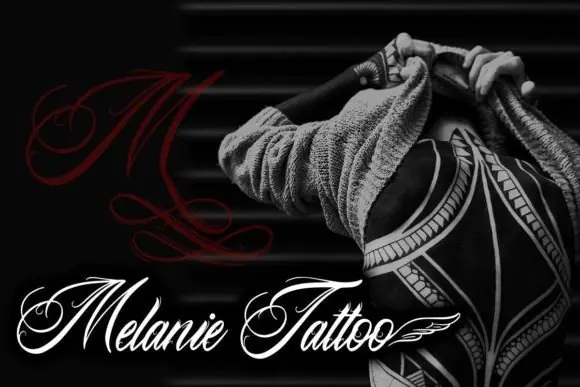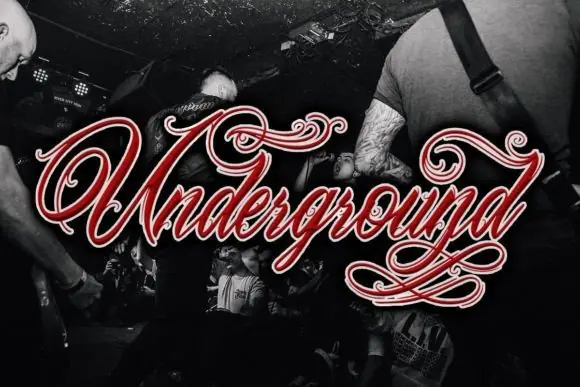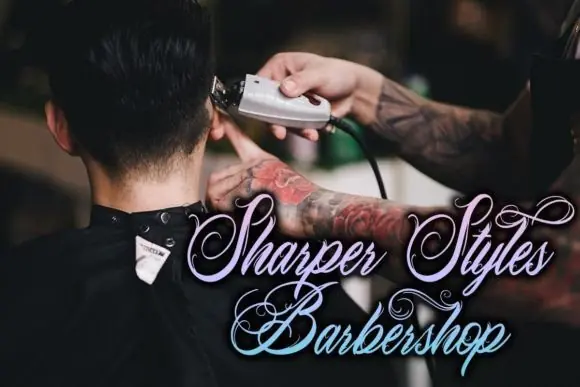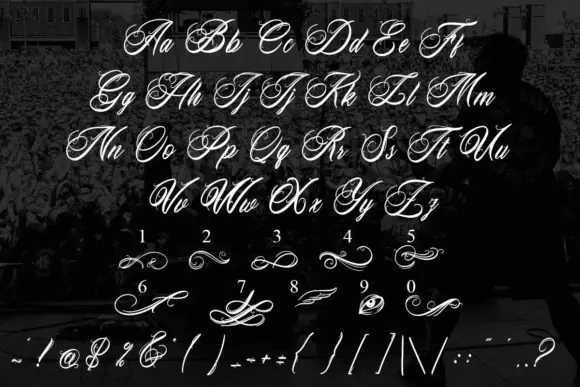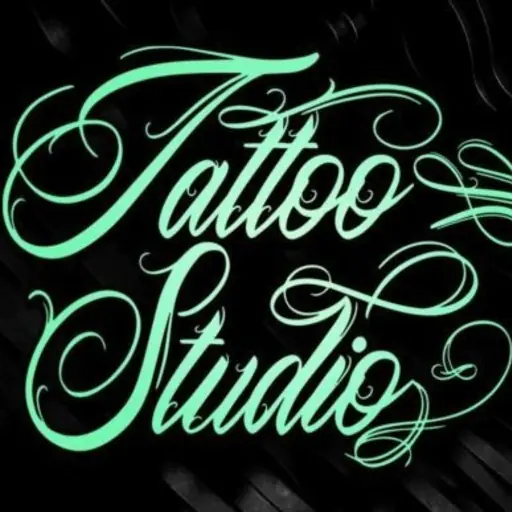
Tattoo Studio Font | Blackletter Script Tattoo Font for Tattoo Artists, Studio Logos, Metal T-Shirts, Hardcore, Punk & Gothic Designs
Create bold, sharp, and professional tattoo-style designs with Tattoo Studio Font, a blackletter script font designed with a fresh and modern gothic feel. This font is crafted with detailed letterforms, neat kerning, and subtle shape refinement, making it a strong choice for tattoo artists, tattoo studios, apparel designers, and creators working with edgy visual themes.
Tattoo Studio Font is perfect for tattoo studio branding, tattoo artist logos, metal t-shirt designs, hardcore graphics, punk artwork, gothic posters, album covers, streetwear apparel, stickers, product labels, packaging, social media graphics, and bold promotional designs.
Its blackletter script style gives your typography a powerful and rebellious personality while still maintaining a polished professional appearance. Whether you are designing a tattoo shop logo, a bold clothing graphic, or a dark music-inspired poster, this font helps your work stand out with confidence and attitude.
• Tattoo studio logos
• Tattoo artist branding
• Metal t-shirt designs
• Hardcore and punk graphics
• Gothic posters and flyers
• Streetwear apparel
• Album covers
• Stickers and labels
• Product packaging
• Motorcycle-themed designs
• Barbershop branding
• Printable wall art
• Bold display typography
• Fresh blackletter script style
• Detailed and carefully designed letterforms
• Neat kerning for a polished look
• Perfect for tattoo artists and tattoo studios
• Great for metal, hardcore, punk, and gothic designs
• Strong visual impact for logos, apparel, and posters
• Suitable for both digital and print projects
Tattoo Studio Font is a powerful choice for designers, tattoo artists, apparel sellers, music creators, and digital product sellers who want to create bold, edgy, and professional designs with a modern blackletter tattoo look.